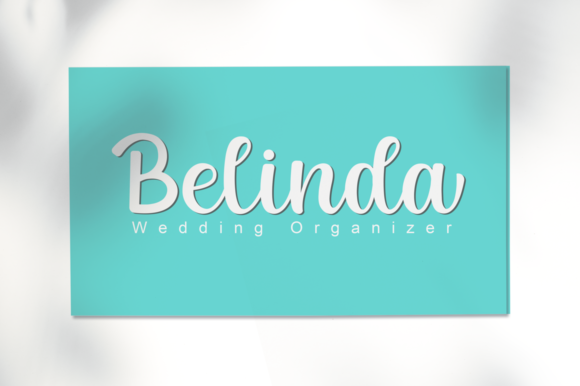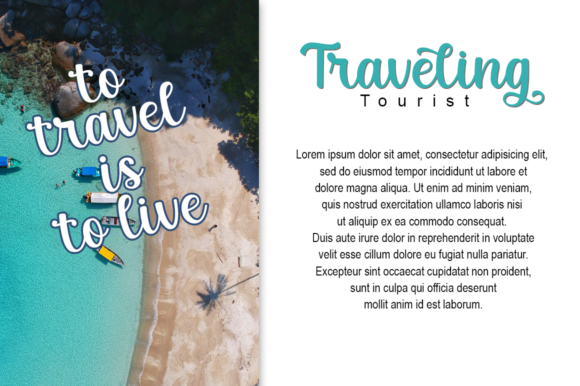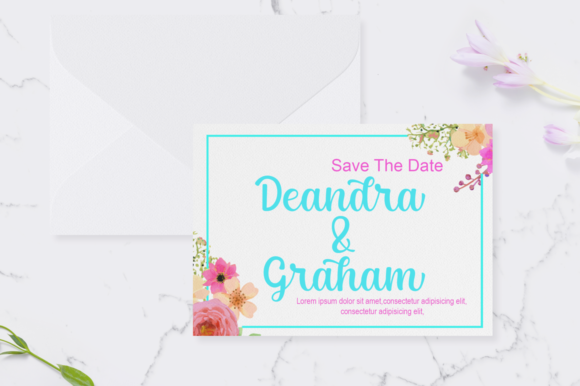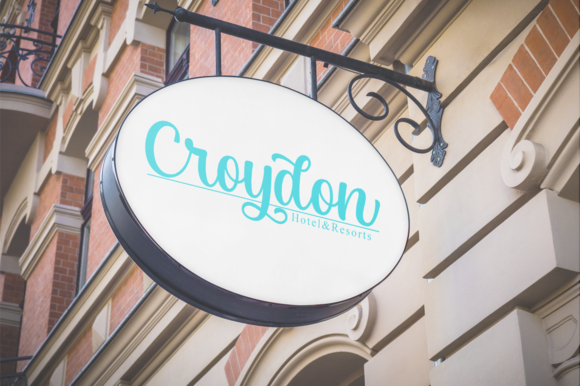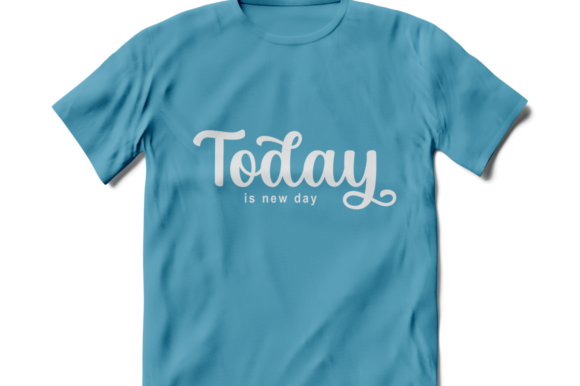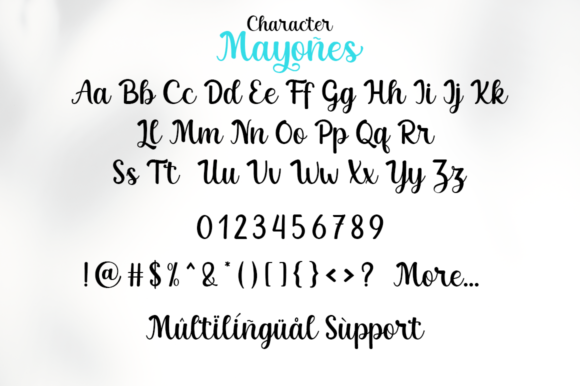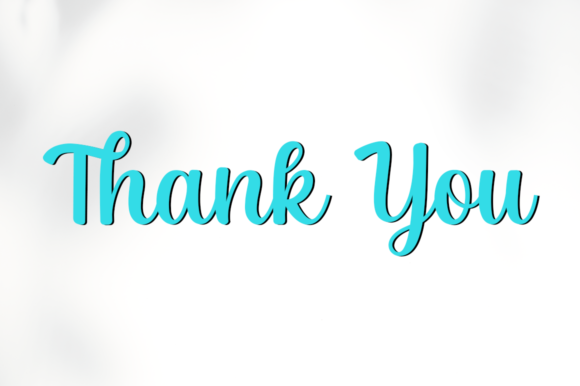
Mayones Font
About Mayones Font
Mayones is a modern and elegant handwritten font. It will elevate a wide range of design projects to the highest level, be it branding, headings, wedding designs, invitations, signatures, logos, labels, and much more!
This font is PUA encoded which means you can access all of the great glyphs and swashes with ease! It also features a wealth of special features including alternate glyphs and ligatures.